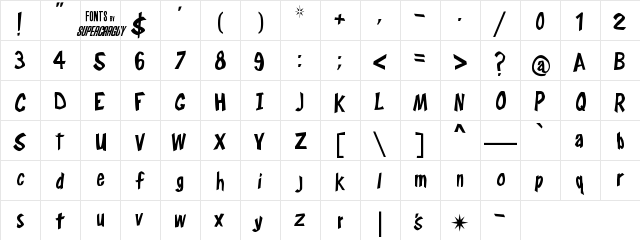
Frosty's Winterland Regular
Design Context for Frosty's Winterland Typeface
Frosty's Winterland is a composed and adaptable typeface that performs quietly and consistently across a wide range of design contexts.